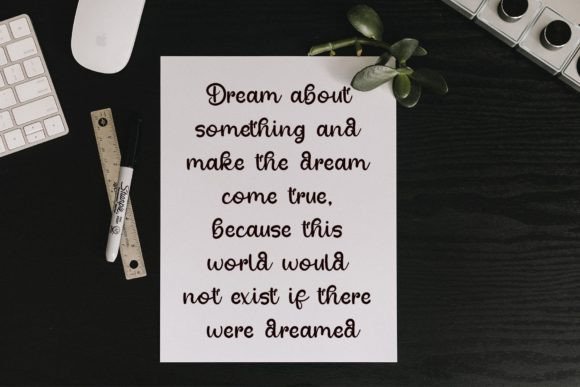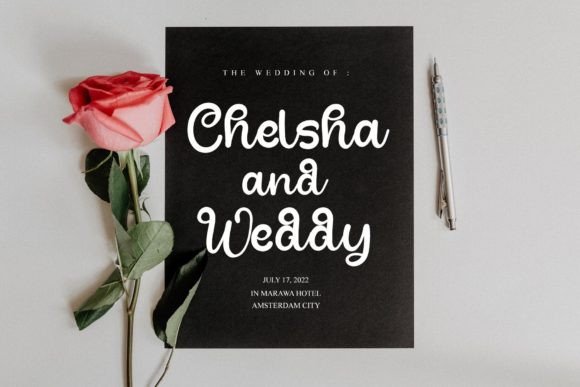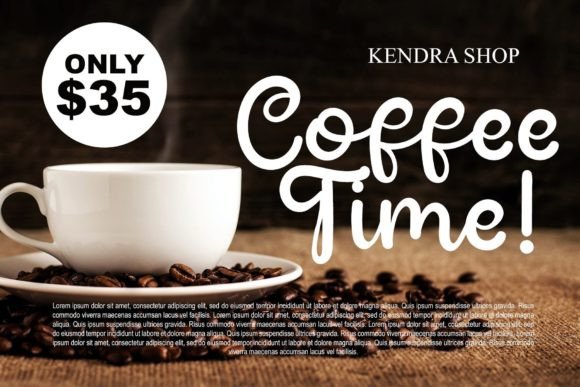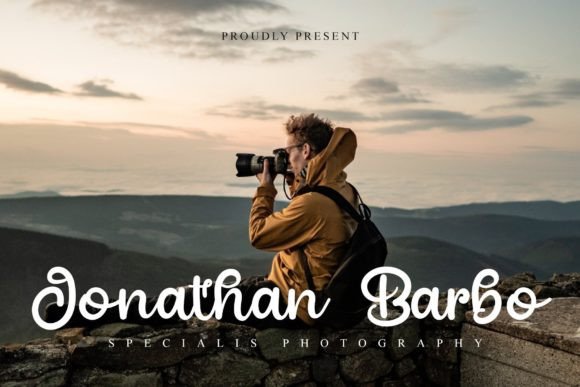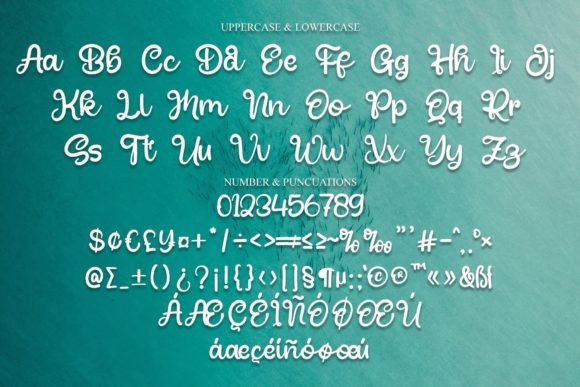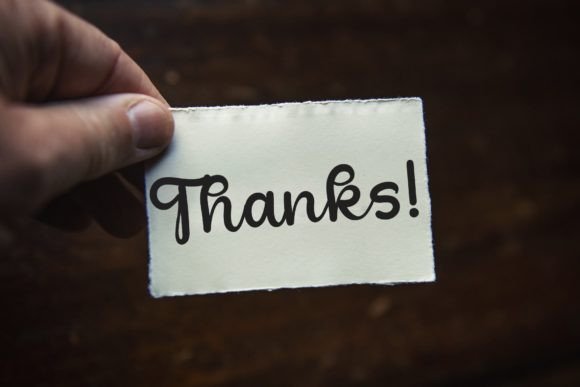
Introduction to Notice Font
As a designer, there’s nothing quite like the thrill of starting a new project – especially when it’s a wedding. The pressure’s off, the client’s excited, and the possibilities are endless. But let’s be real, finding the perfect font can be a challenge. That’s why I’m excited to introduce you to one of my favorite design resources: Notice Font.
Notice Font is a high-quality, free download that’s perfect for any creative project – and especially for weddings. With its beautiful, handwritten script and adorable hearts to dot the i’s, it’s the perfect way to add a touch of whimsy and romance to your design. Whether you’re working on a wedding invitation, a save-the-date card, or a custom sign, Notice Font is a valuable resource that’s sure to make your design stand out.
And the best part? With a transparent background, you can easily layer Notice Font over any image or design element, giving you complete control over the look and feel of your project. So why settle for a generic font when you can have a beautiful, one-of-a-kind design? Get ready to fall in love with Notice Font!
Notice Font
- High-quality font with a transparent background, perfect for creative projects and design resources.
- Includes a wide range of characters, including uppercase and lowercase letters, numbers, and special characters.
- Designed to be highly legible, even at small font sizes, making it ideal for use in signage, labels, and other applications where readability is crucial.
- Resolution-independent, allowing for crisp and clear display at any resolution, from low to high DPI.
- Perfect for use in a variety of creative projects, including posters, flyers, business cards, and more.
Honest Review: Notice Font
I recently had the chance to try out the Notice Font, and I have to say it’s been a game-changer for my creative projects. The high-quality design makes it perfect for anything from simple text overlays to full-fledged branding.
- What works well: ✨ The transparent background makes it incredibly versatile, allowing me to use it on any background without worrying about visual clashes. ✨ The font itself is clean, modern, and easy to read, making it perfect for any project where you need to grab attention.
One thing to note is that the font can be a bit limited in terms of style options ⚠️. While it’s great for general use, it may not be the best choice if you’re looking for a more unique or custom design.
Overall, I’m really impressed with the Notice Font. It’s a high-quality design resource that’s perfect for any creative project. Whether you’re a seasoned designer or just starting out, this font is definitely worth checking out.
Notice Font
Notice Font is a versatile and high-quality design resource that can elevate your creative project. With its transparent background, it’s perfect for adding a touch of elegance to your designs.
Notice Font is perfect for:
- Creating eye-catching titles and headings
- Designing elegant menus and labels
- Adding a touch of sophistication to your presentations and documents